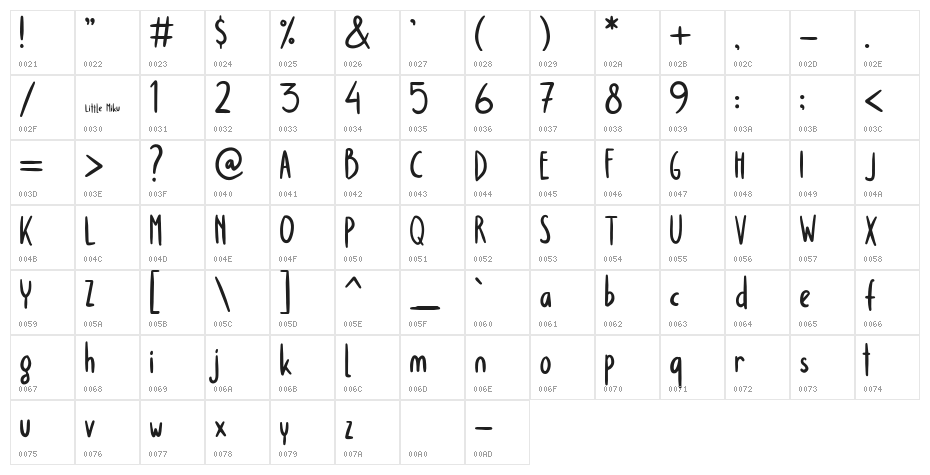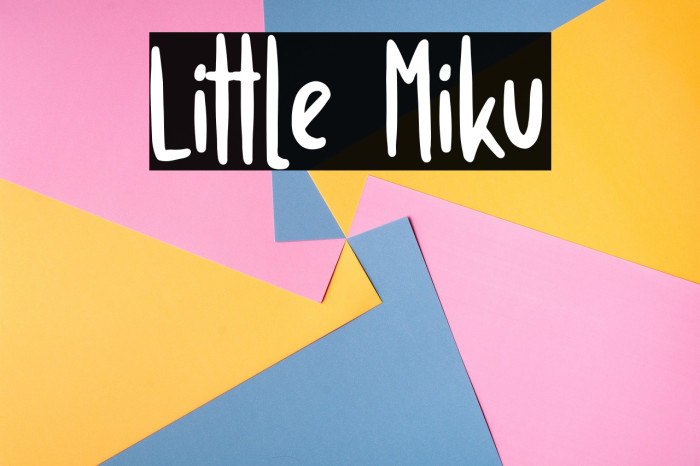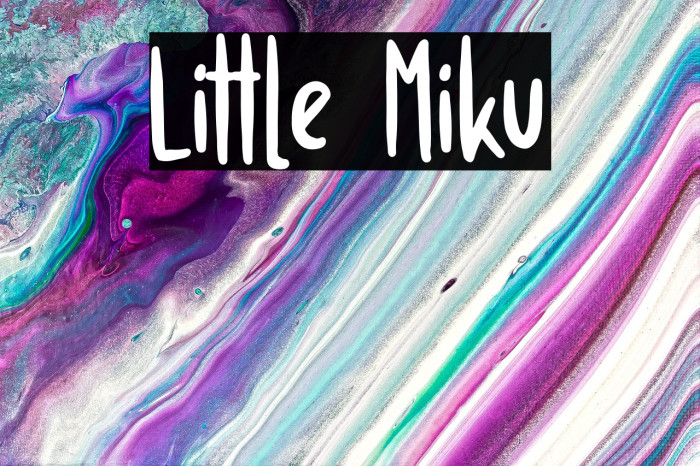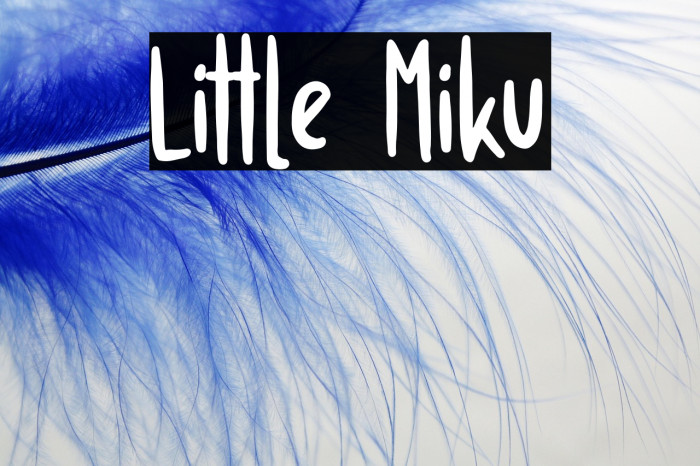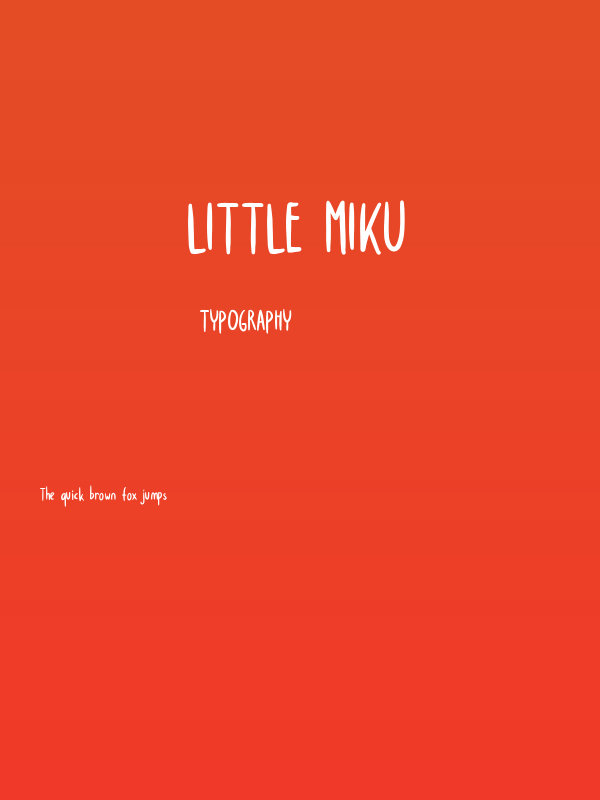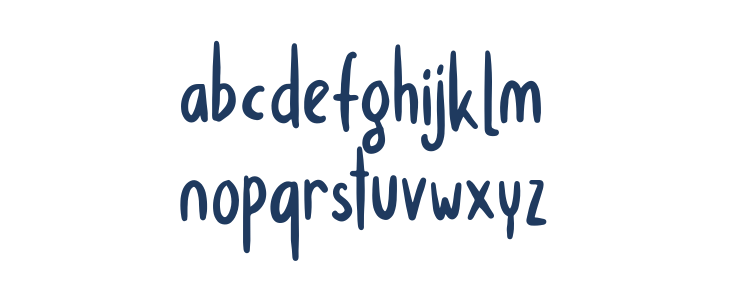
Little Miku Font
Little Miku Description
This font features a playful and whimsical handwritten style, characterized by its uneven strokes and casual appearance. The letters have a slightly irregular baseline, adding to the informal and friendly vibe. The uppercase letters are bold and prominent, while the lowercase letters maintain a consistent flow, making it suitable for creative and informal projects. The numbers and special characters follow the same playful design, ensuring a cohesive look across all text elements. The overall style is approachable and fun, perfect for projects that require a personal touch.
| Use Case | Headlines, Logos, Informal text |
| Proposed Projects | Ideal for children's books, greeting cards, playful branding, and social media graphics. |